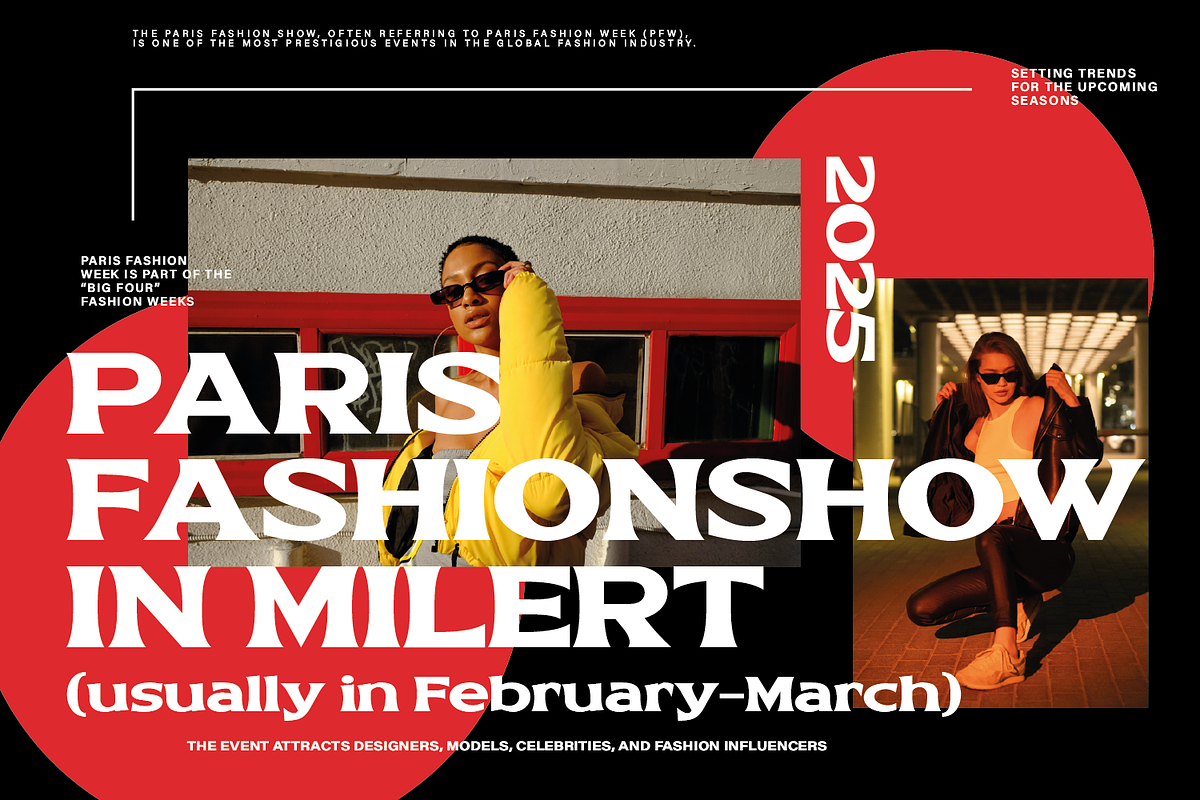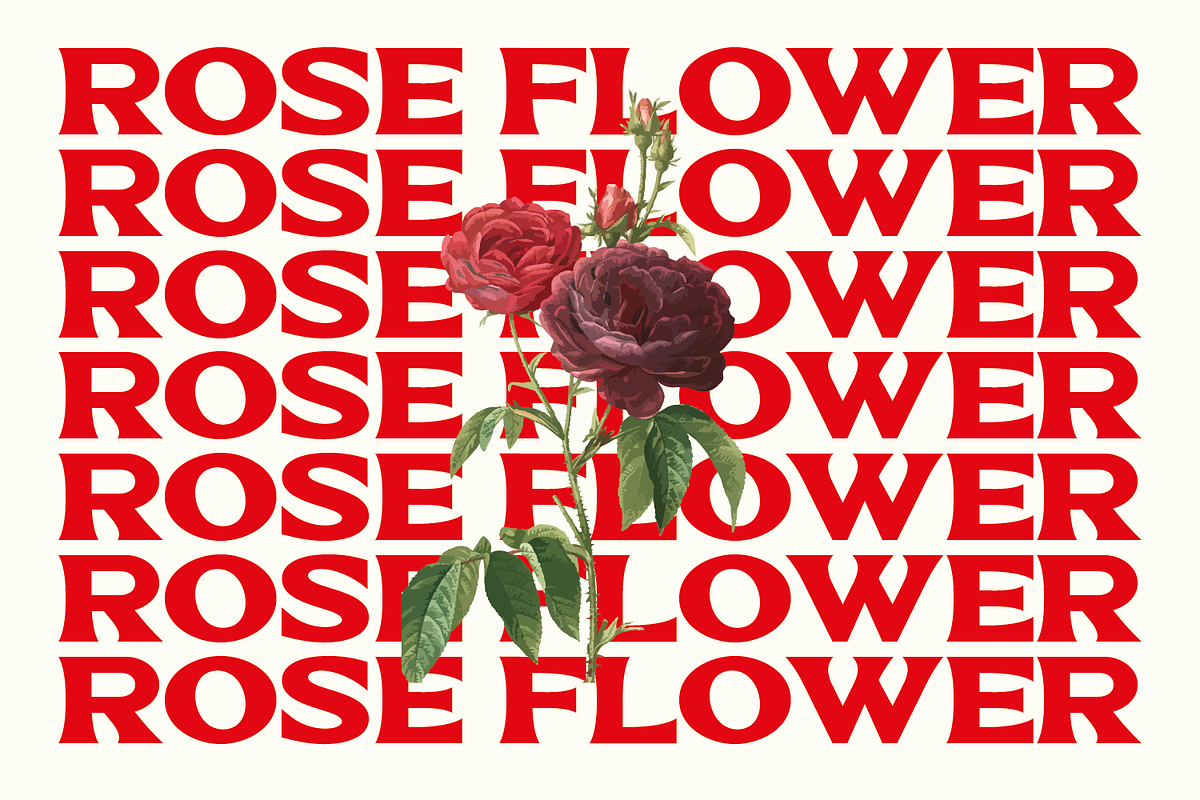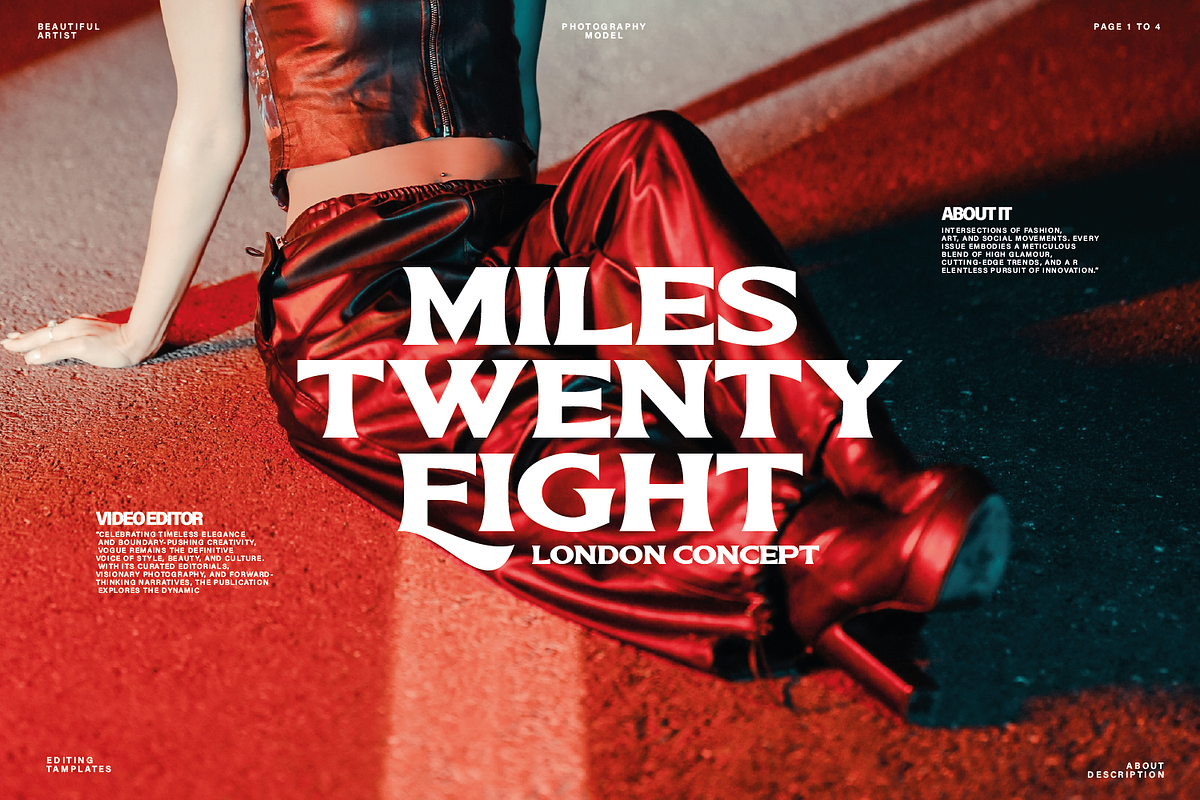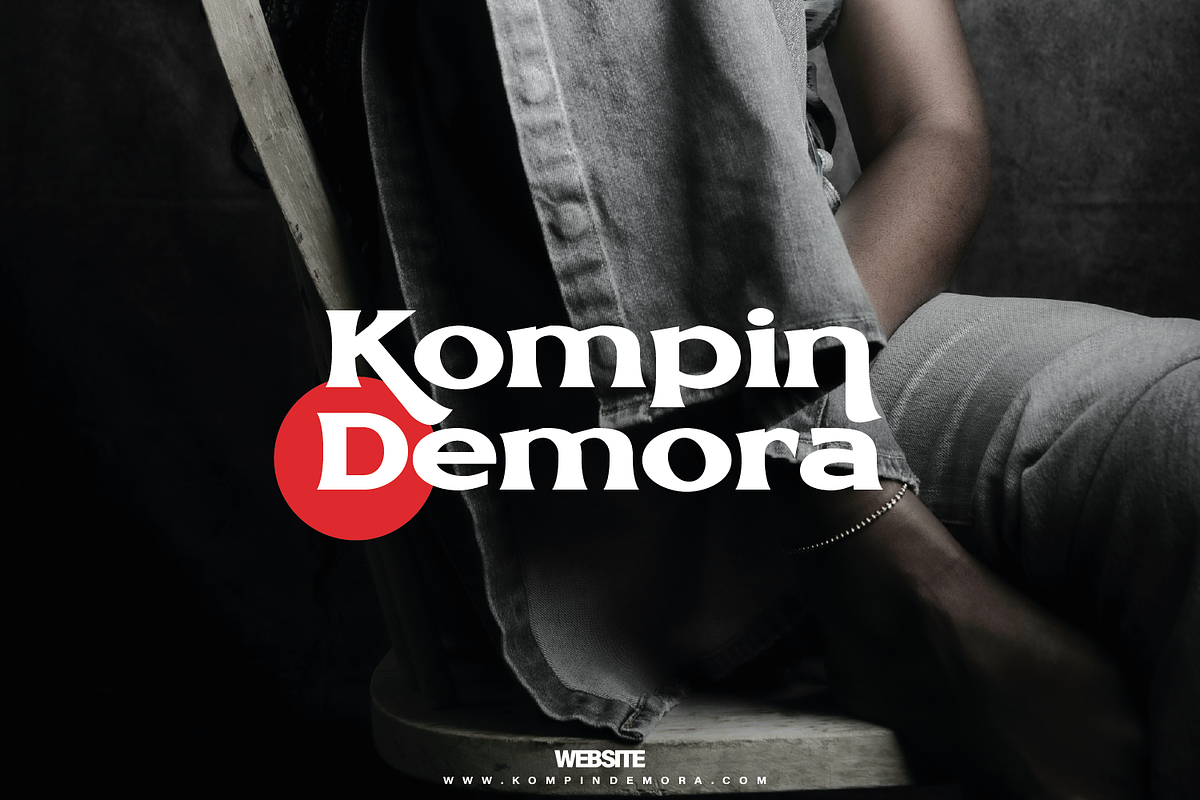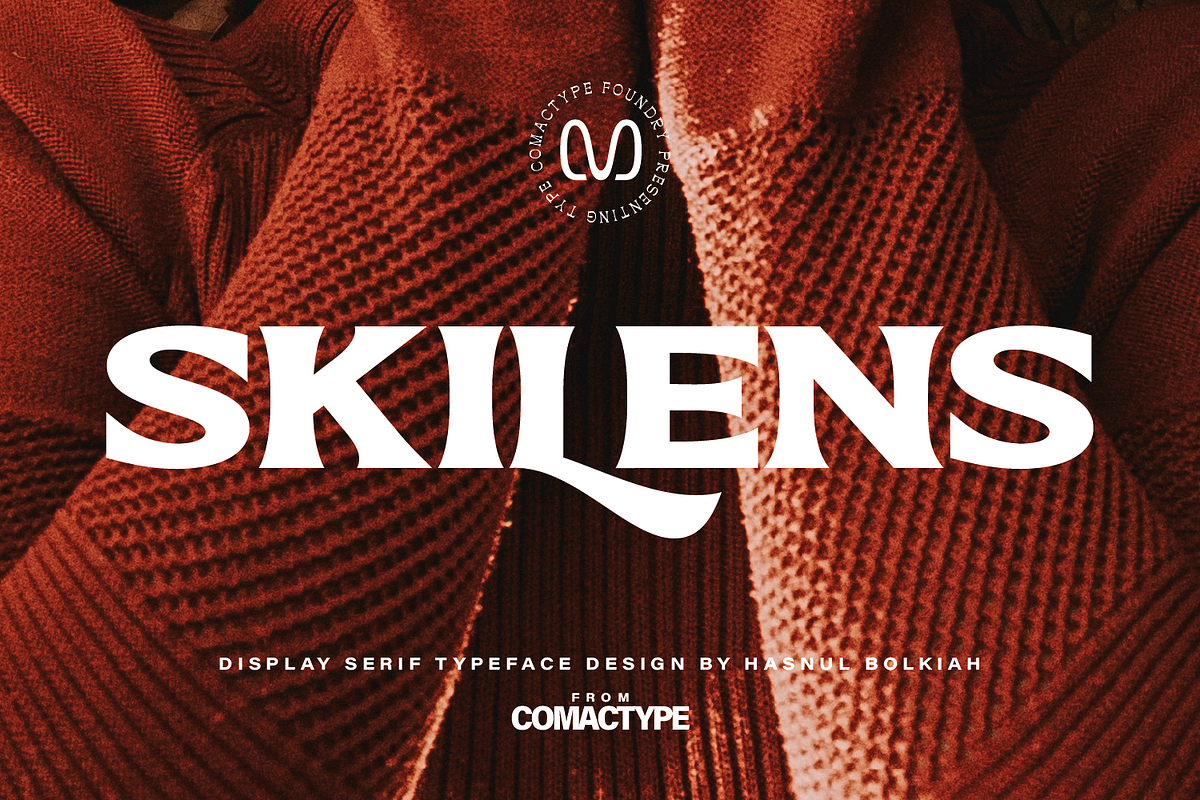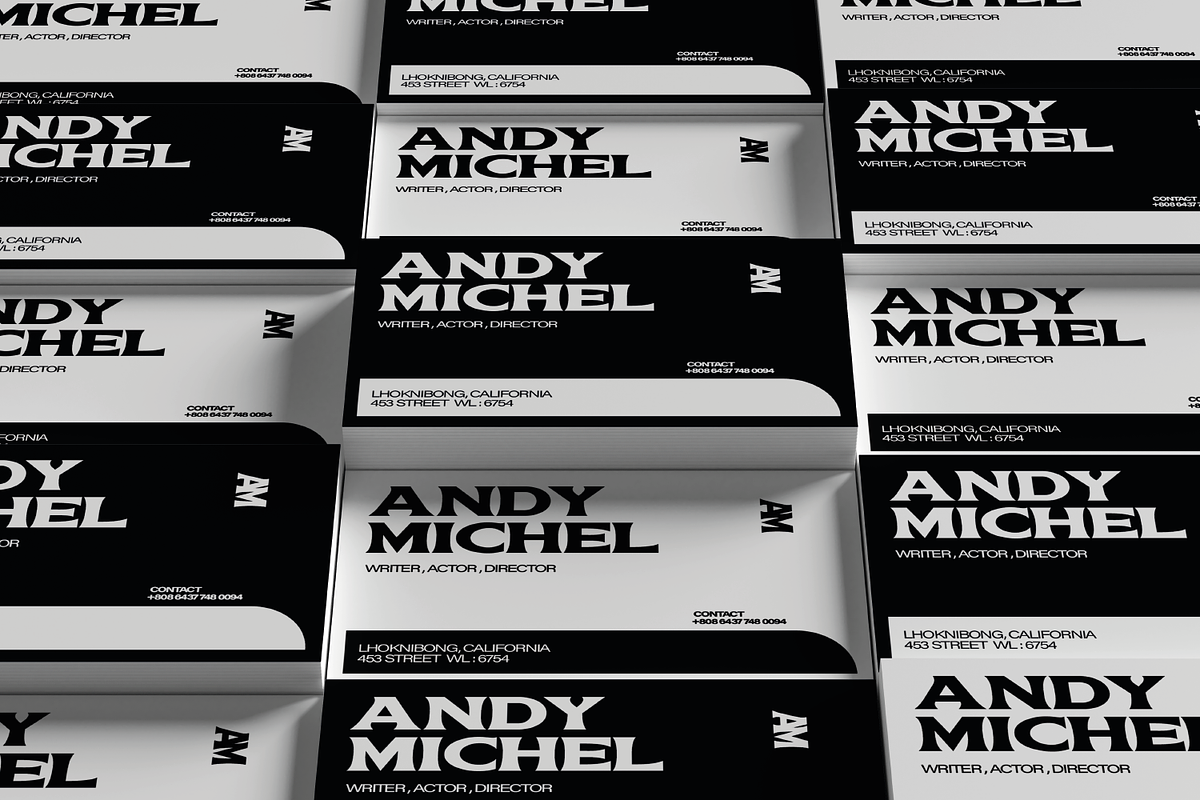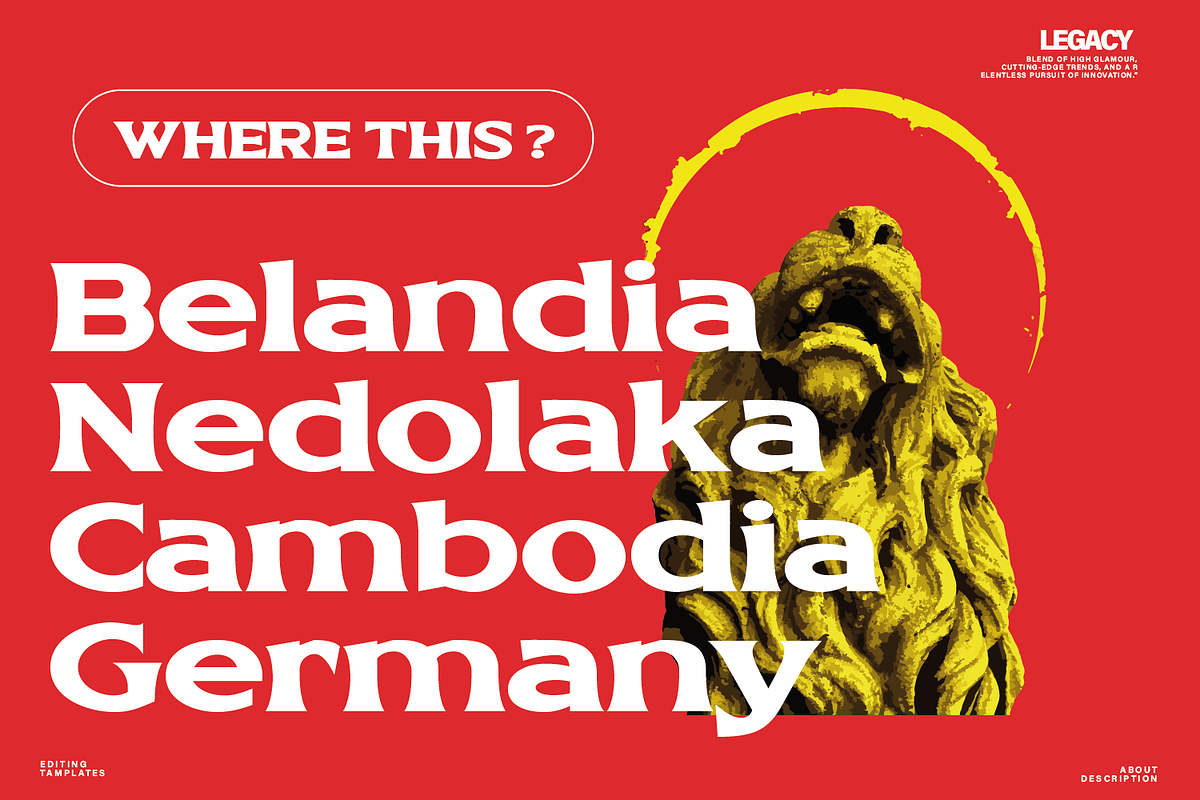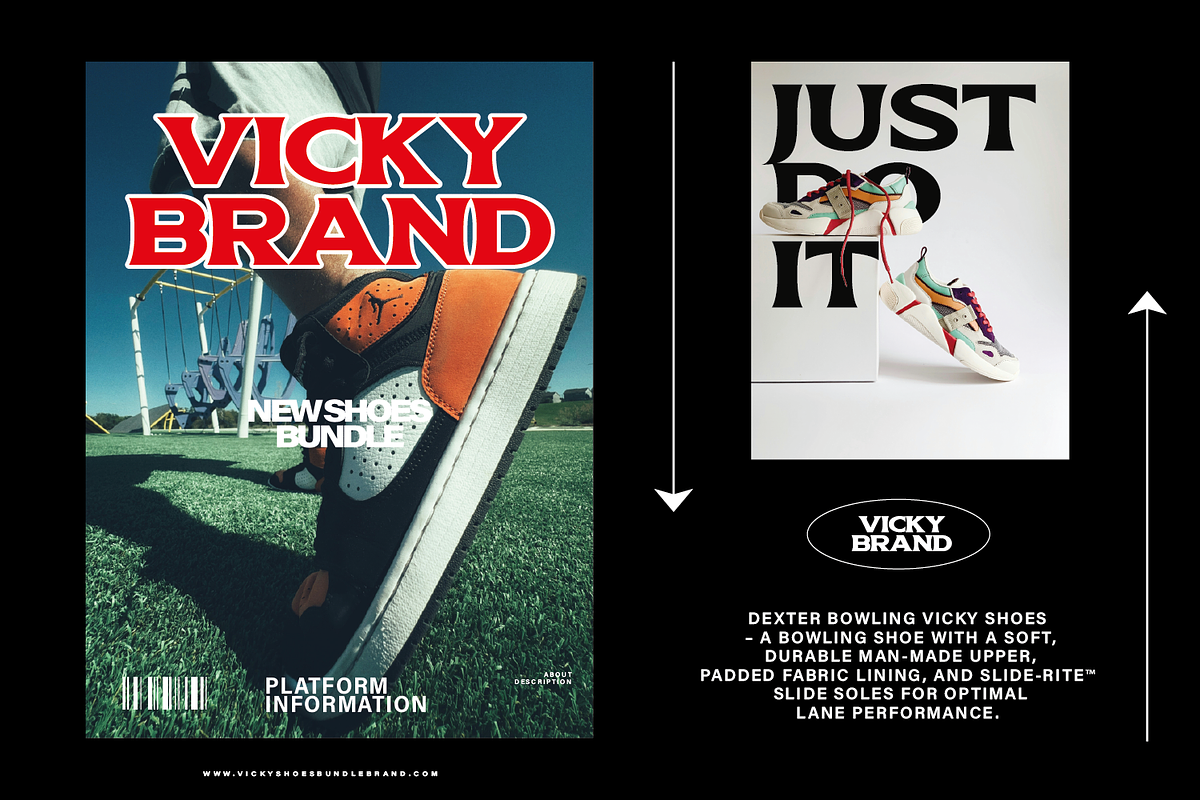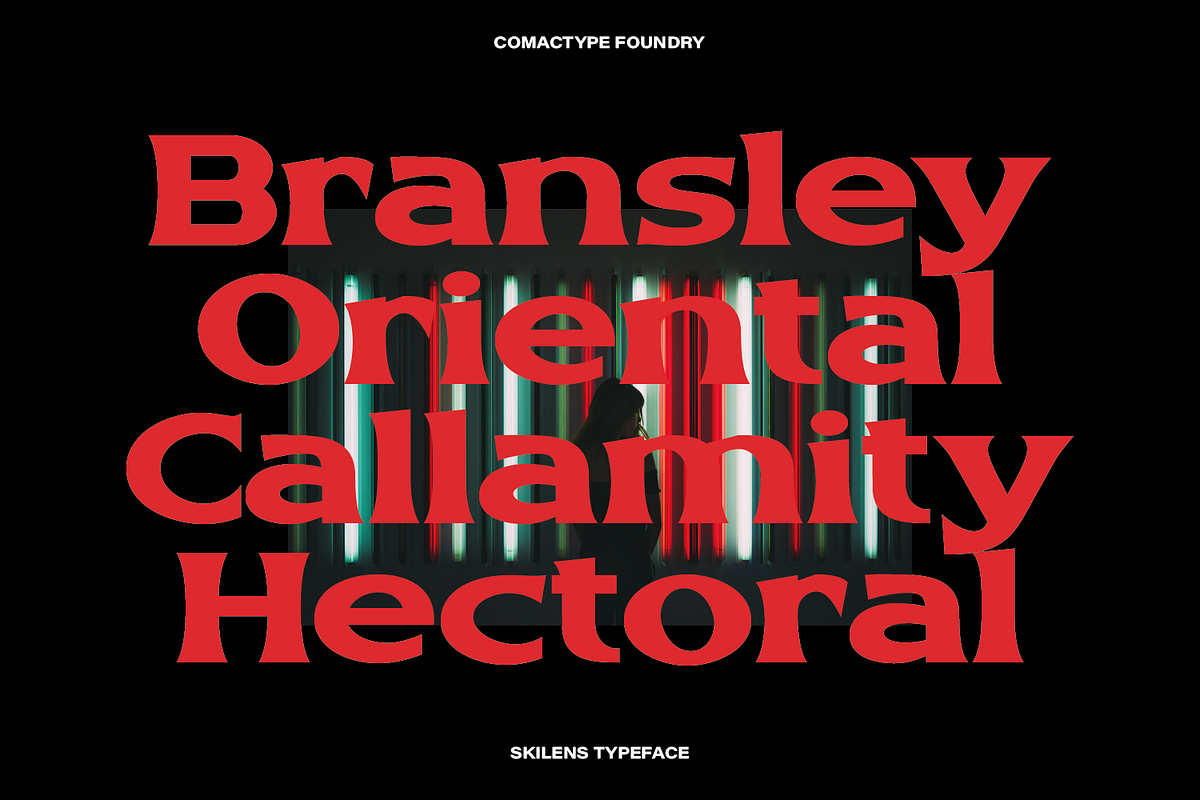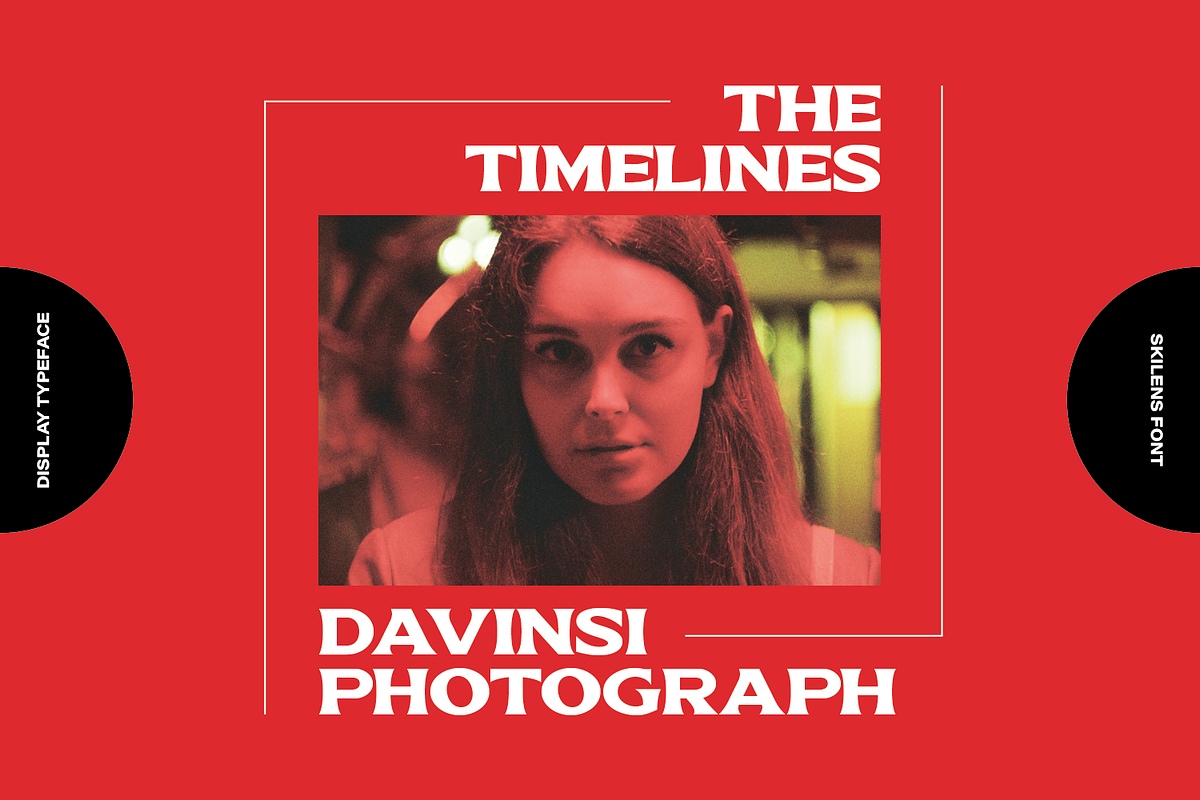
Skilens - Display Serif Typeface
SKILENS – Where Elegance Meets Boldness Elevate your brand’s visual appeal with Skilens, a display serif typeface that blends classic elegance with modern sophistication. Designed by Hasnul Bolkiah and released by Comatype Foundry, Skilens features bold, striking letterforms that exude luxury and exclusivity. With a selection of unique alternates, this typeface offers versatility for branding, editorials, logos, and standout posters. Make a statement with Skilens – because every detail matters.